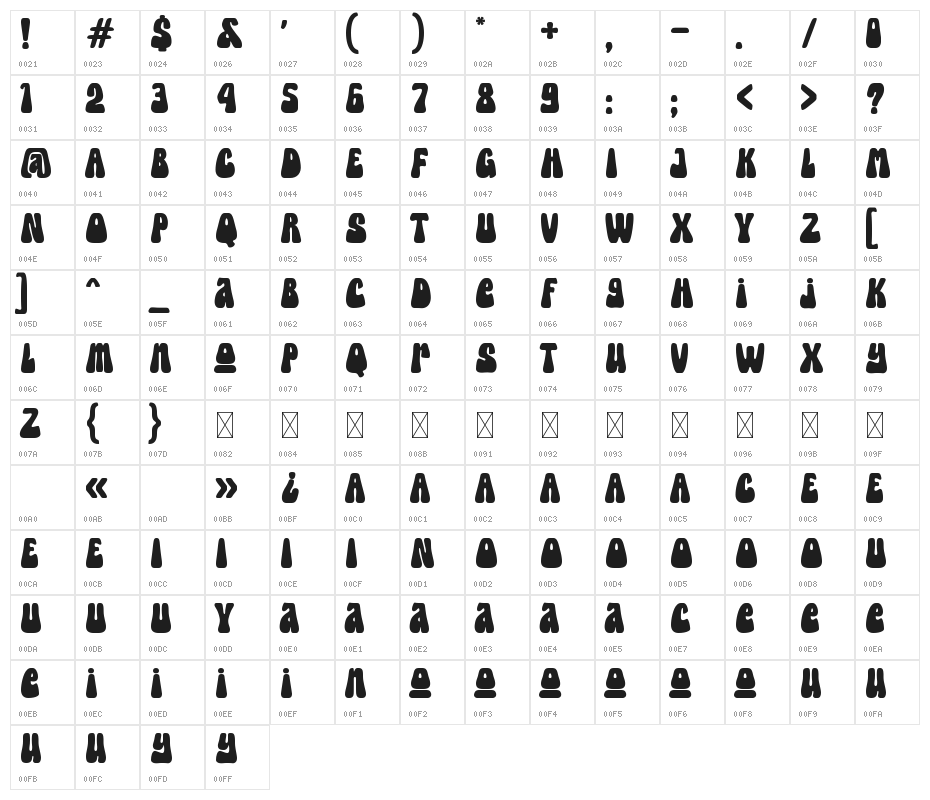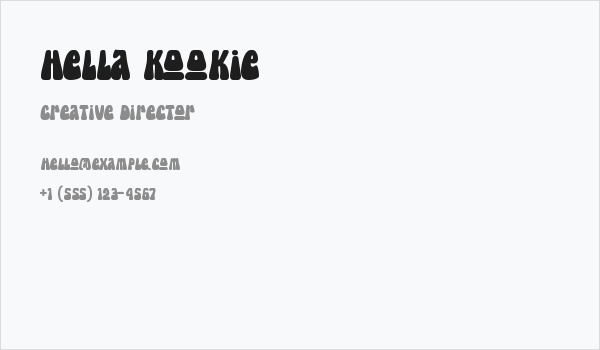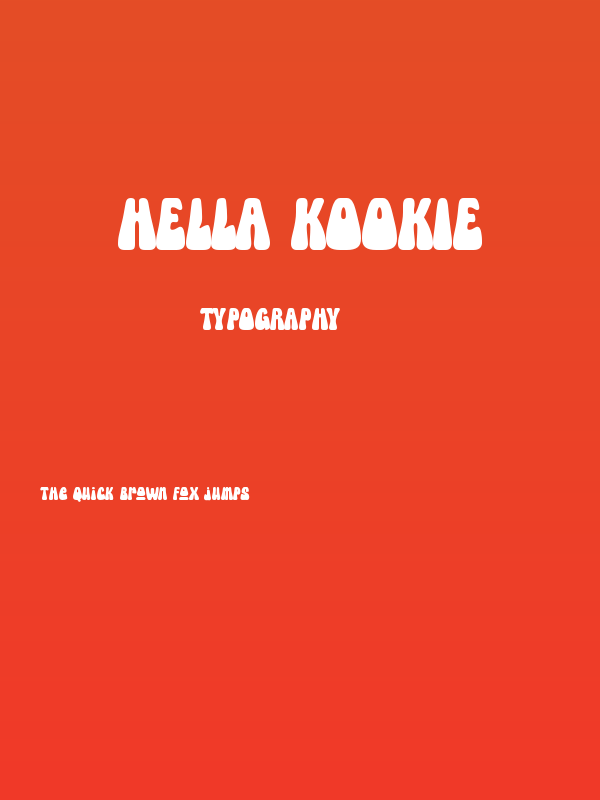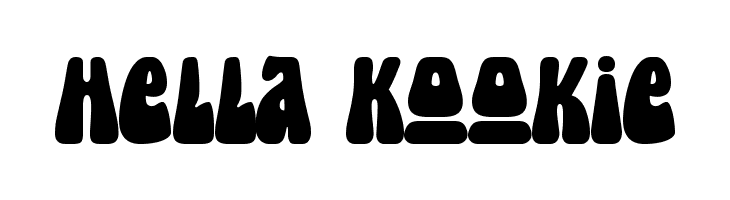
Hella Kookie Font
| Gesamtstil | Playful, Fun, Whimsical |
| Vorgeschlagene Projekte | Ideal for children's book covers, playful branding, party invitations, and eye-catching posters. |